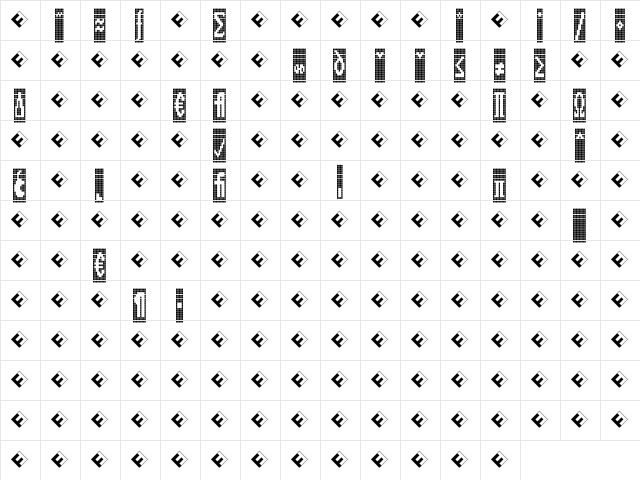
CallNineL-NegativExp Regular
Design Context for CallNineL-NegativExp Typeface
CallNineL-NegativExp takes a measured approach to typography — its balanced proportions and neutral character make it a reliable workhorse for both digital and print work.